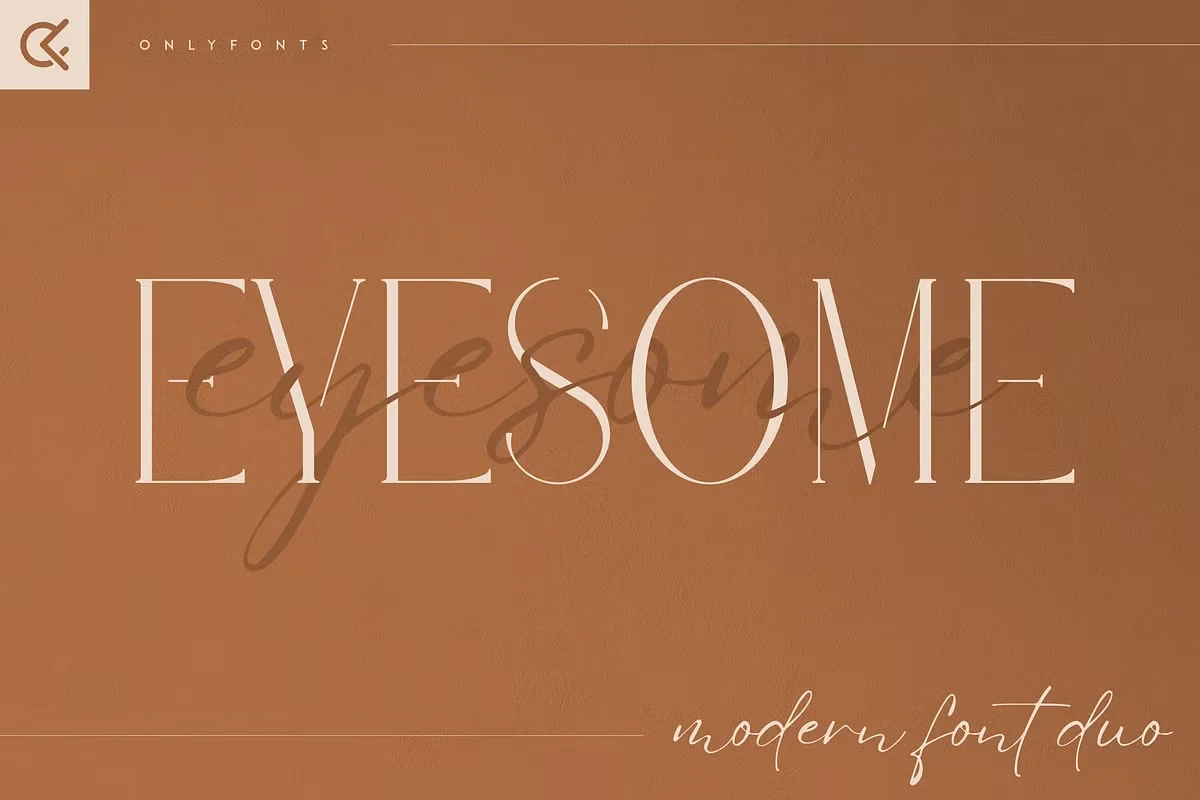
Eyesome: A Delicate and Versatile Typeface for Every Design Need
Eyesome is a beautifully crafted, natural serif typeface designed with extensive multilingual support, making it perfect for a wide range of design applications. Its versatility shines in both large-scale and small-scale designs, ensuring it adapts seamlessly to any creative environment.
Whether you’re working on branding projects, home-ware designs, product packaging, or magazine headers, Eyesome is the ideal choice for adding stylish text to your visuals. Its elegant design makes it perfect for overlaying on images, enhancing the overall aesthetic of your work.
Key Features Eyesome Font:
- Comprehensive Character Set: Includes uppercase, lowercase, numerals, special characters, punctuation marks, and symbols.
- Three Font Styles: Regular, Italic, and Script to suit diverse design needs.
- Multilingual Support: Designed to meet the language requirements of users worldwide.
Eyesome combines simplicity with sophistication, making it a must-have for designers seeking a versatile and elegant typeface.